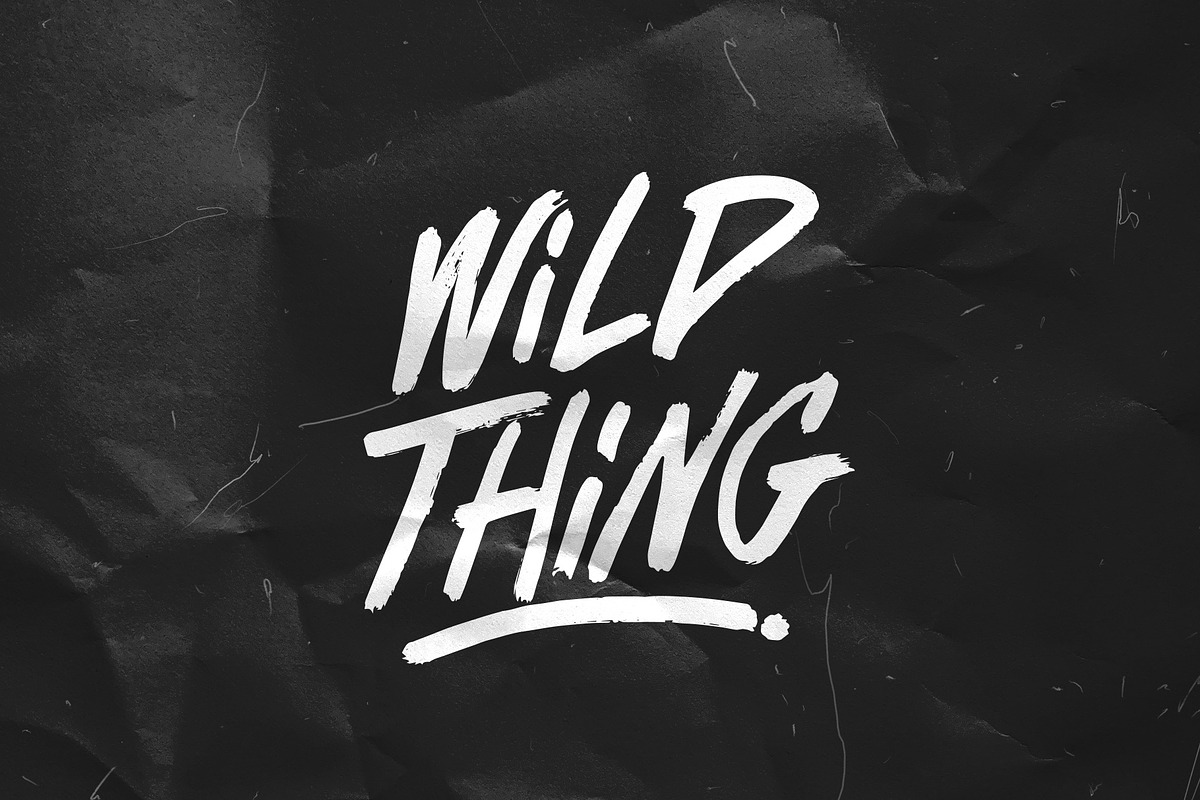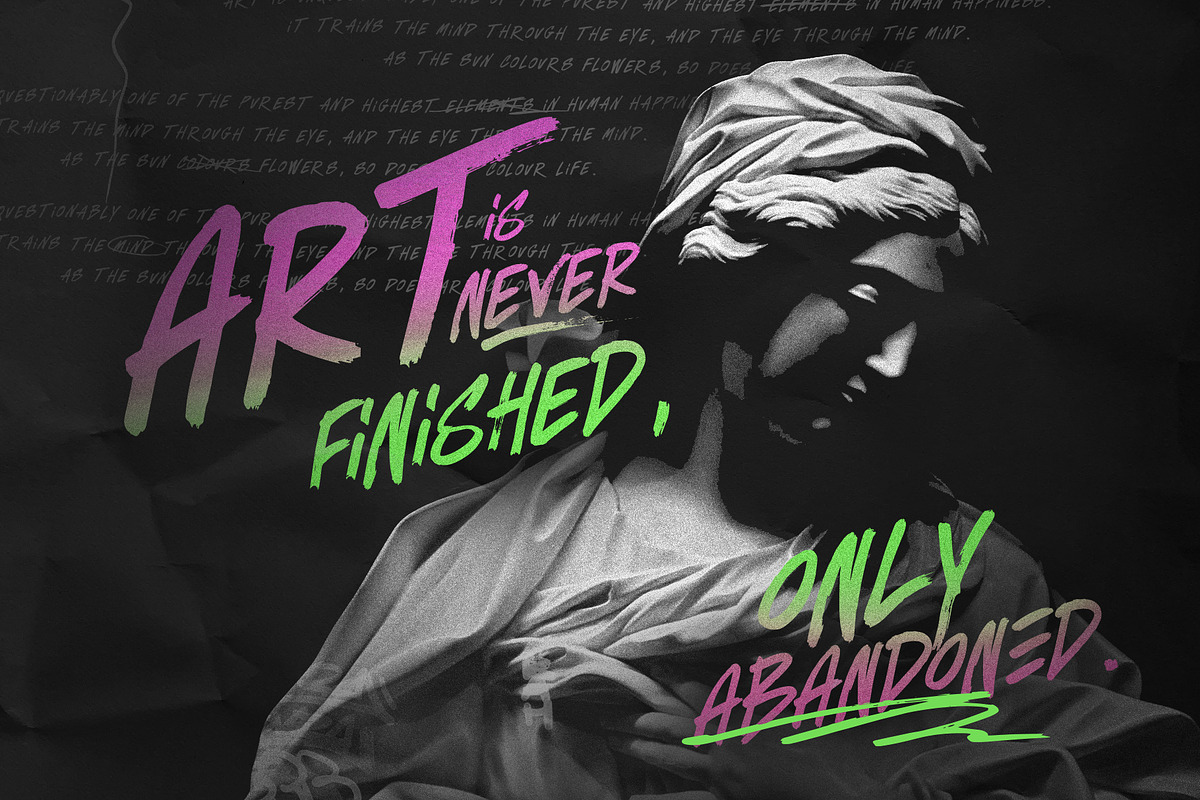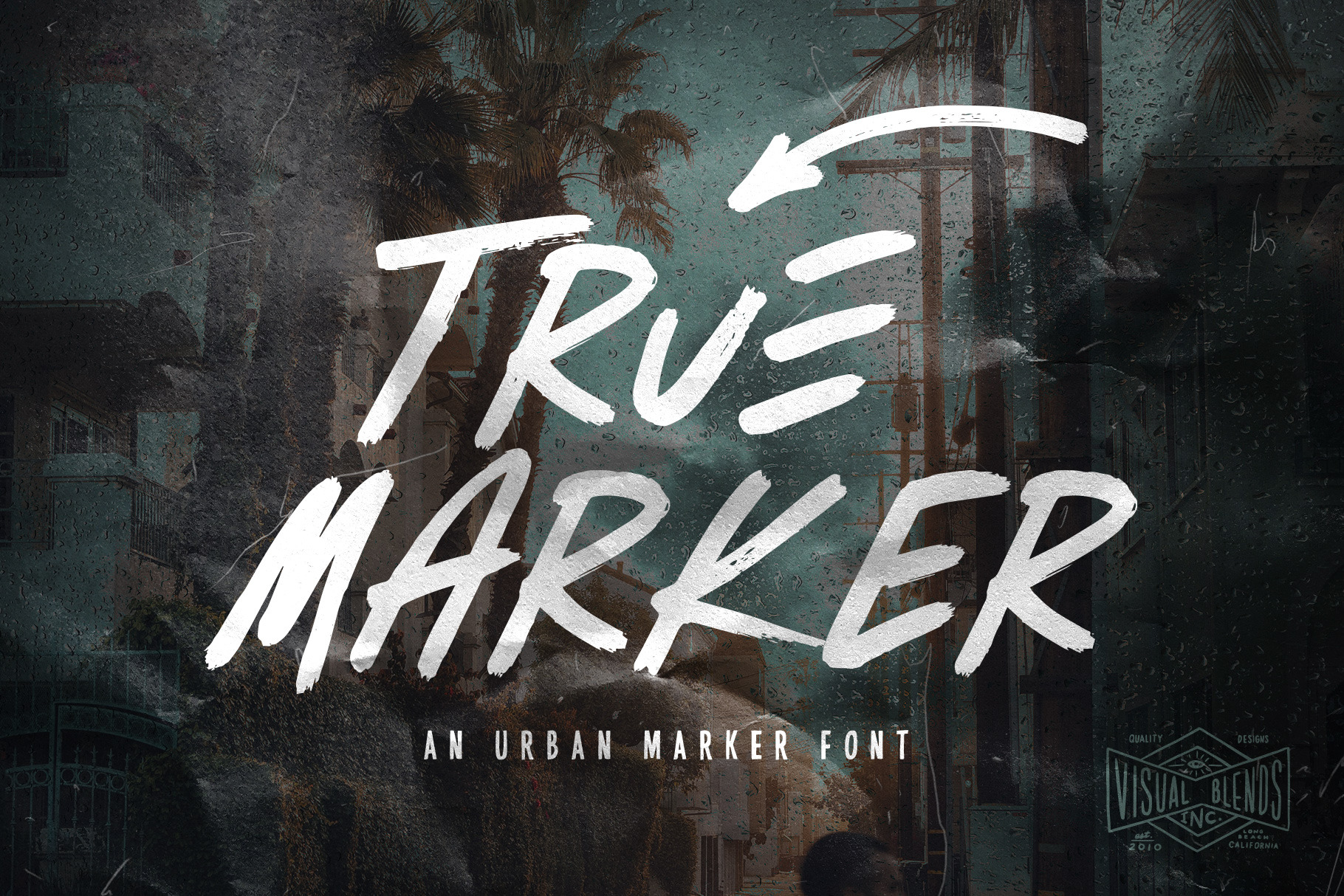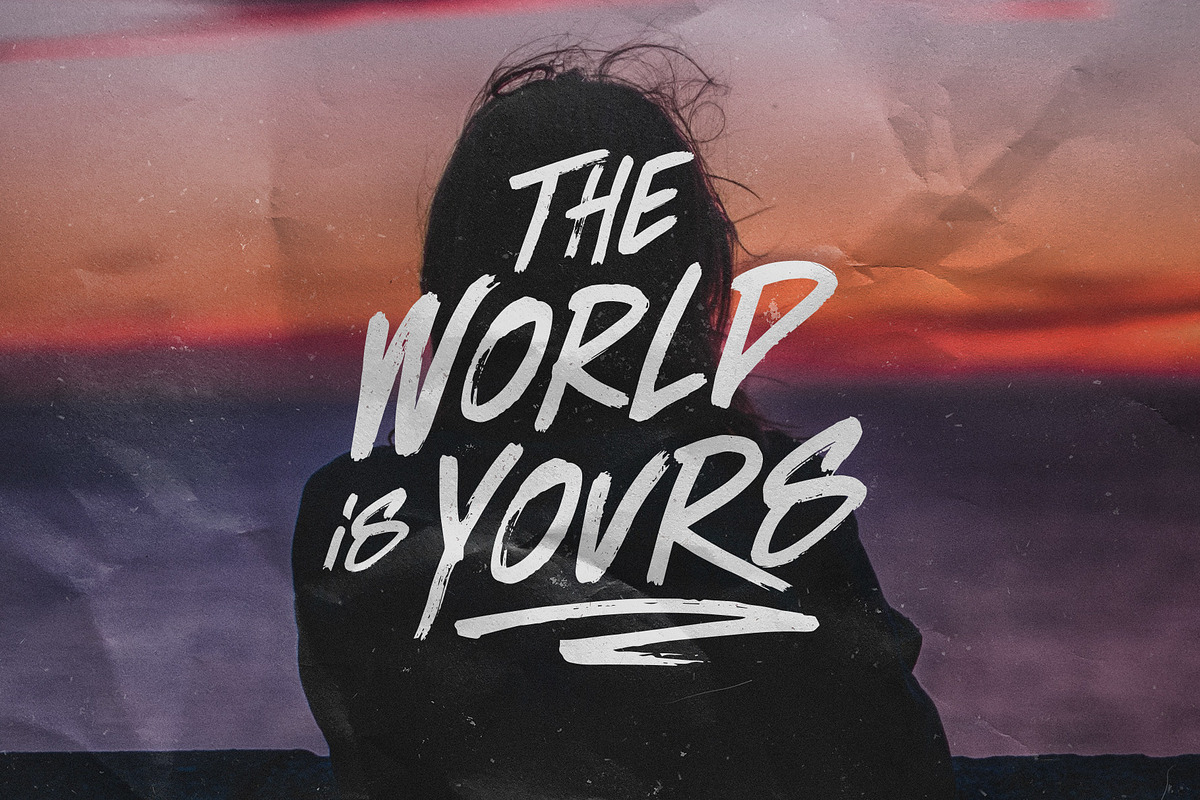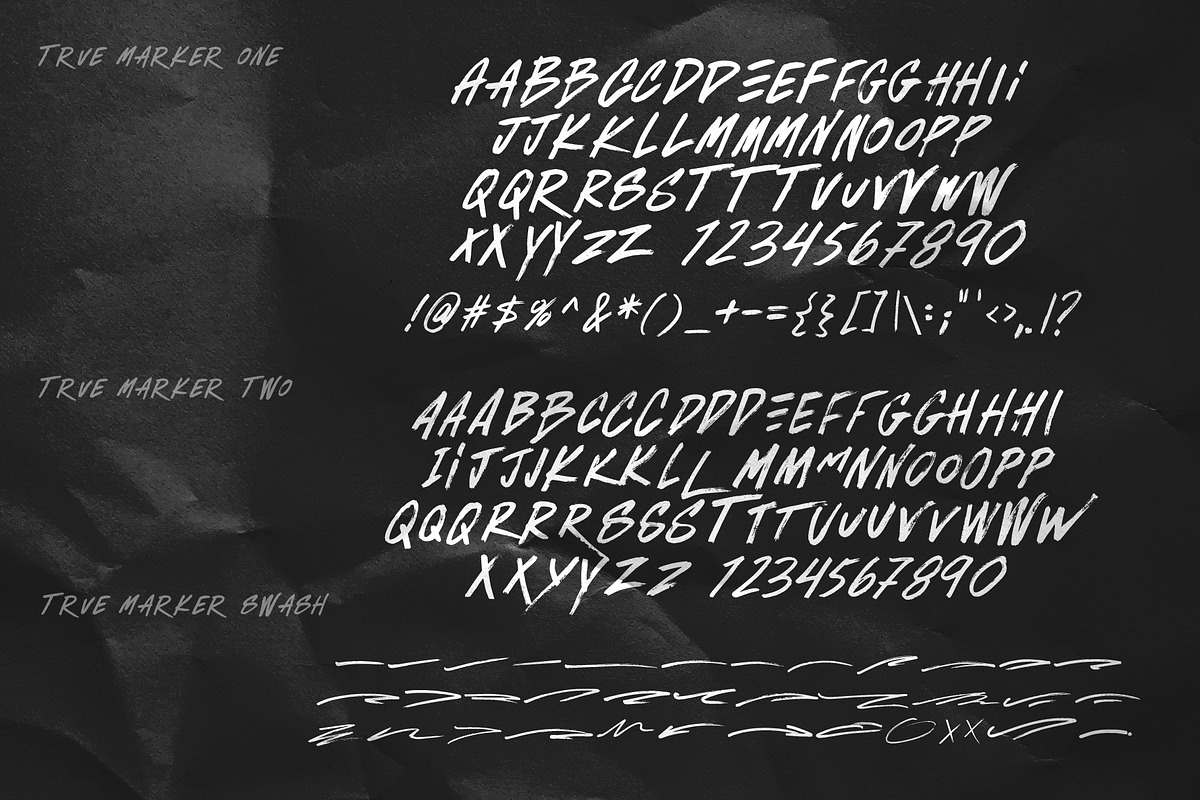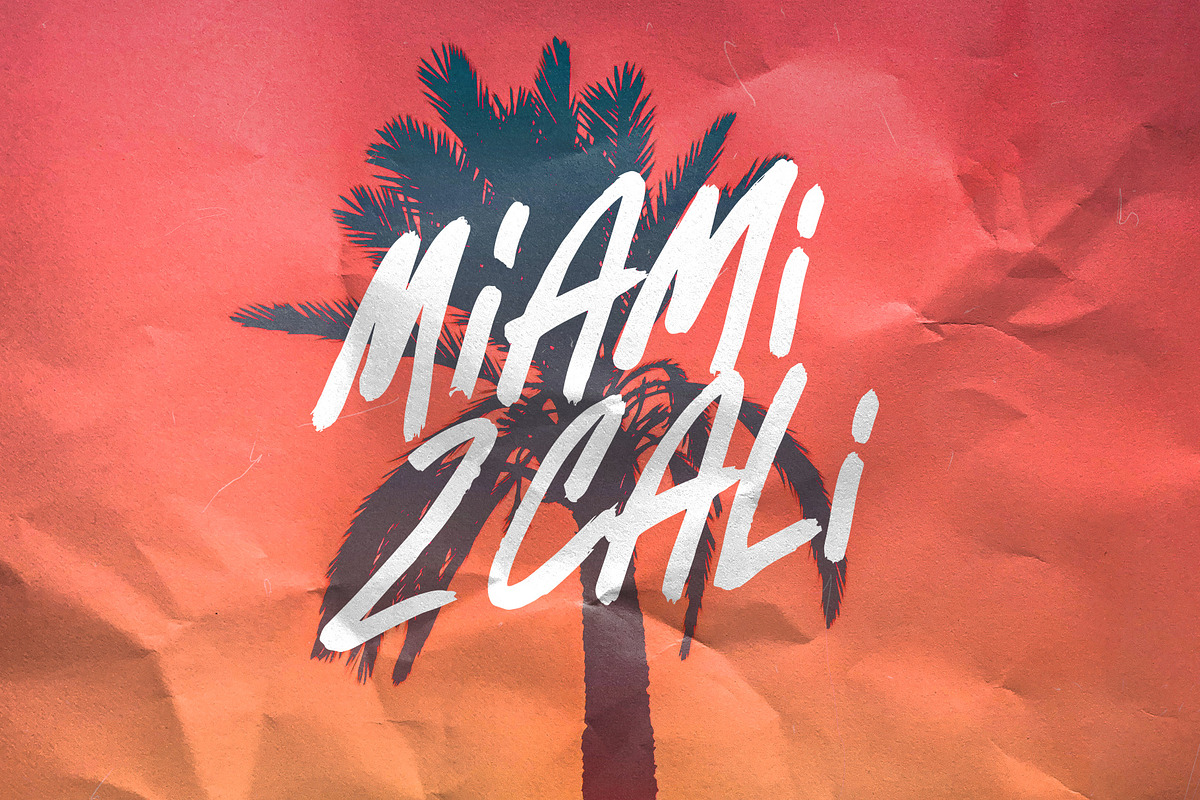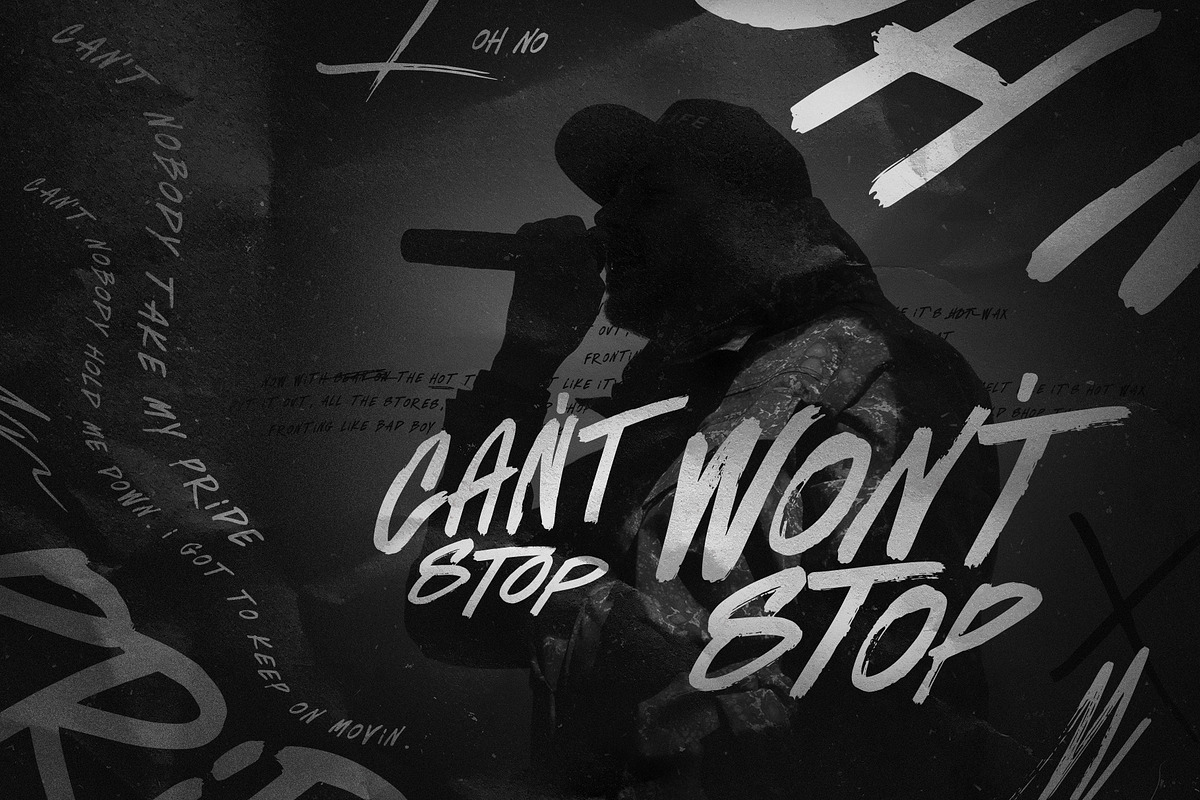
True Marker Font
True Marker is an urban street marker font collection that was created using real paint markers. This is the perfect font to have realistic marker type. Use lower and uppercase for alternative characters. In addition, this includes True Marker Two (A dry brush look).
1.) True Marker One - A realistic marker font with subtle streaking.
2.) True Marker Two - A realistic marker font with increased streaking. (Perfect to pair with True Marker One to give a realistic look! [Like a marker running out of ink.])
3.) True Marker Swash - Complete the look with over 30 swash elements to incorporate into your design.